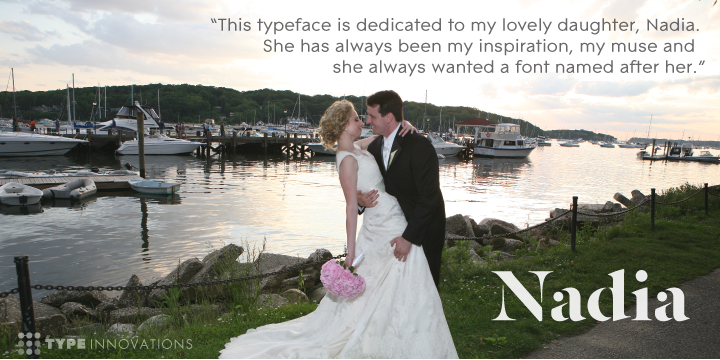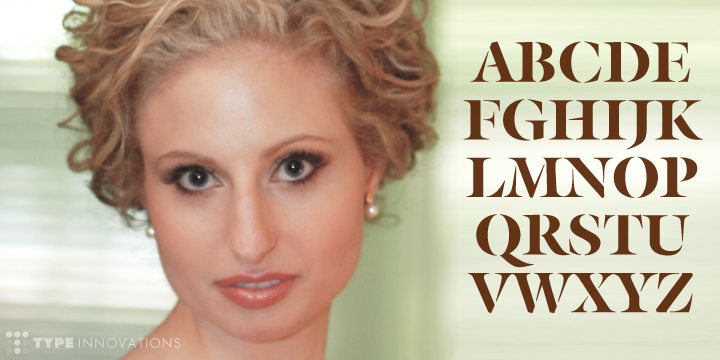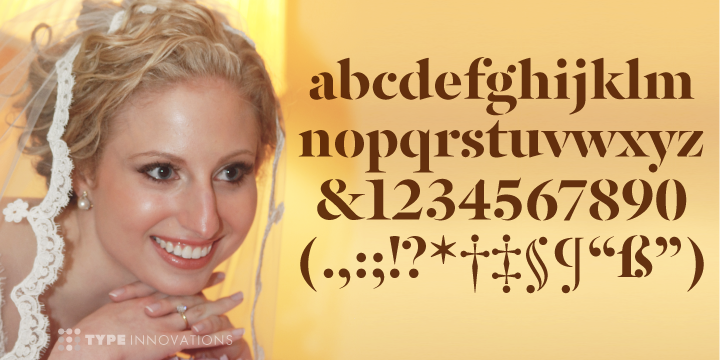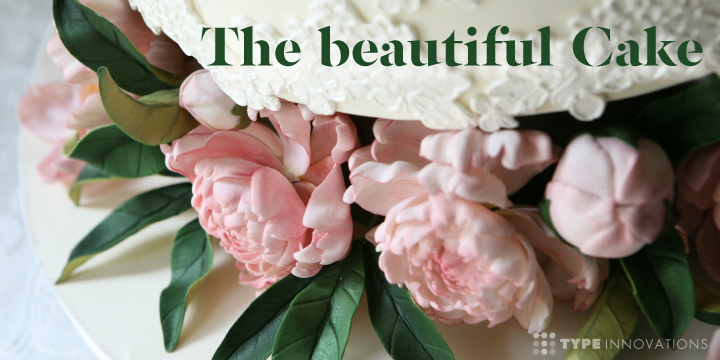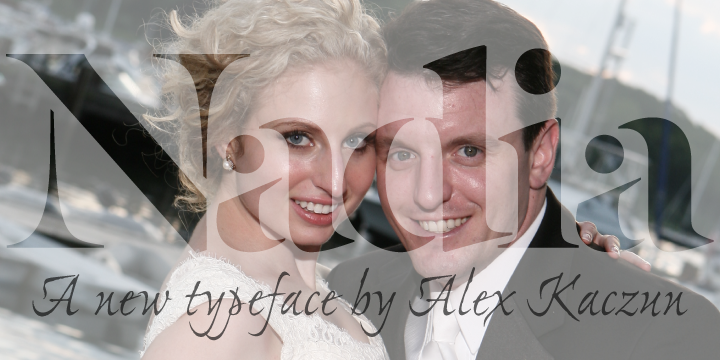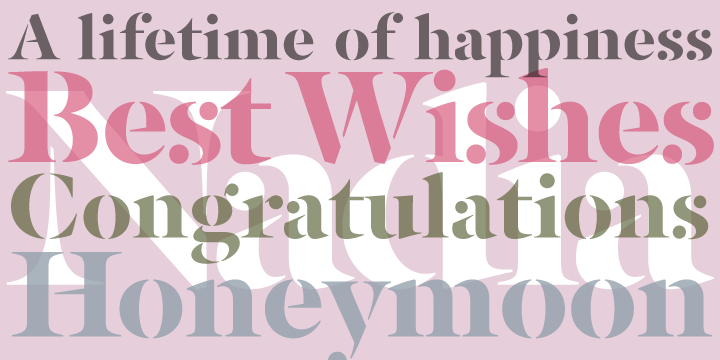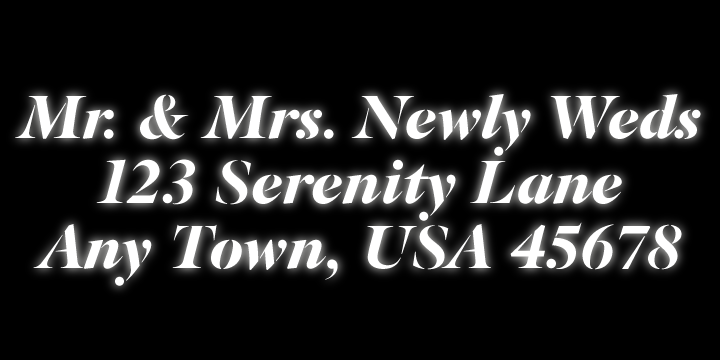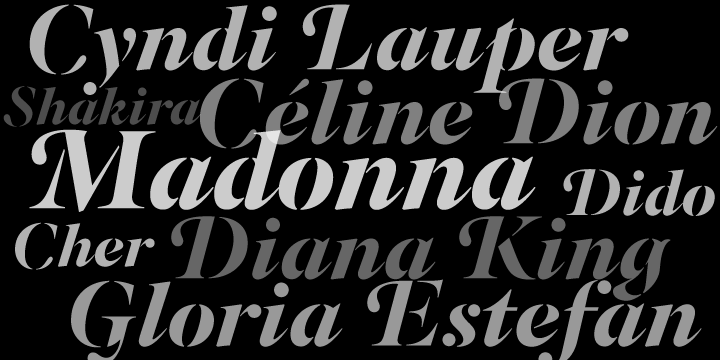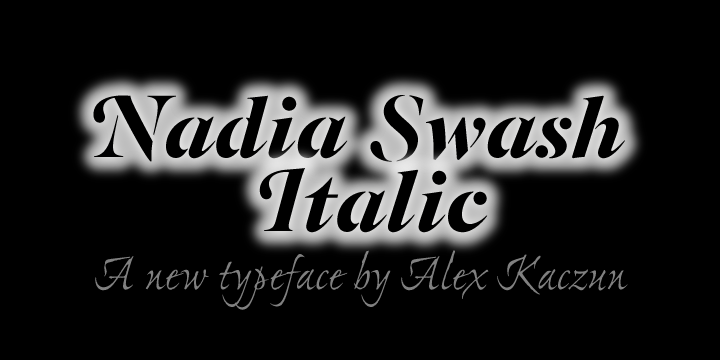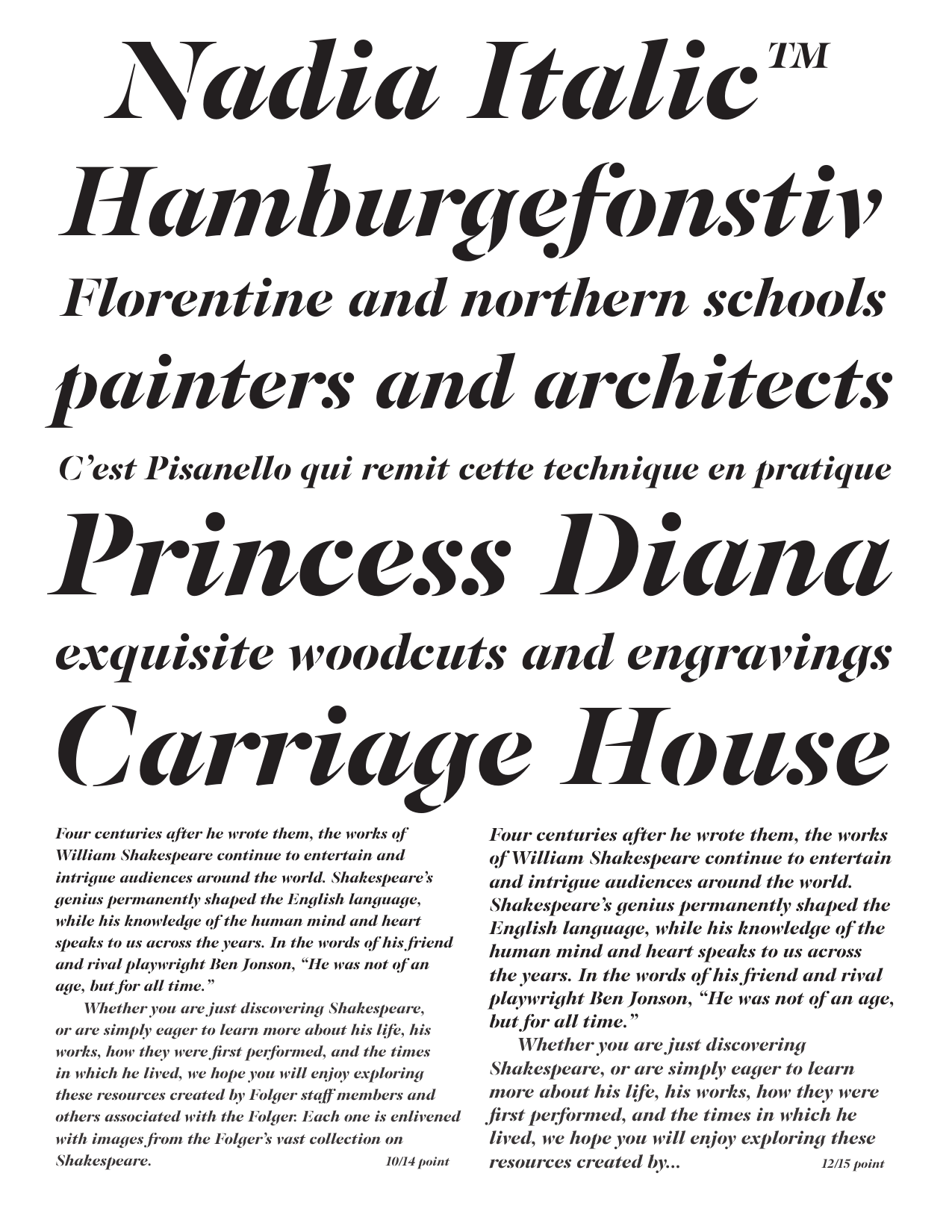
Nadia Collection
Nadia
Regular ItalicNadia Swash
ItalicNadia is an original design by Alex Kaczun. It is a modern stencil interpretation of Granjon Oldstyle, highlighted by large elongated serifs, generous proportions and a large x-height. It is an elegant display for headlines as well as text.
Named after his daughter, Nadia has a distinctively vibrant and baroque quality which some would even call sensuous. It’s a truly unique stencil treatment characterized by crisp, clean, rounded shapes.
This beautiful new typeface comes in ‘Roman’ with a matching ‘Italic’ and decorative ‘Swash’ capitals, along with ‘Old Style Figures’.
Alex is currently working on a range of additional weights and styles. He also plans to expand this design for cyrillic as well as for most Eastern European languages.